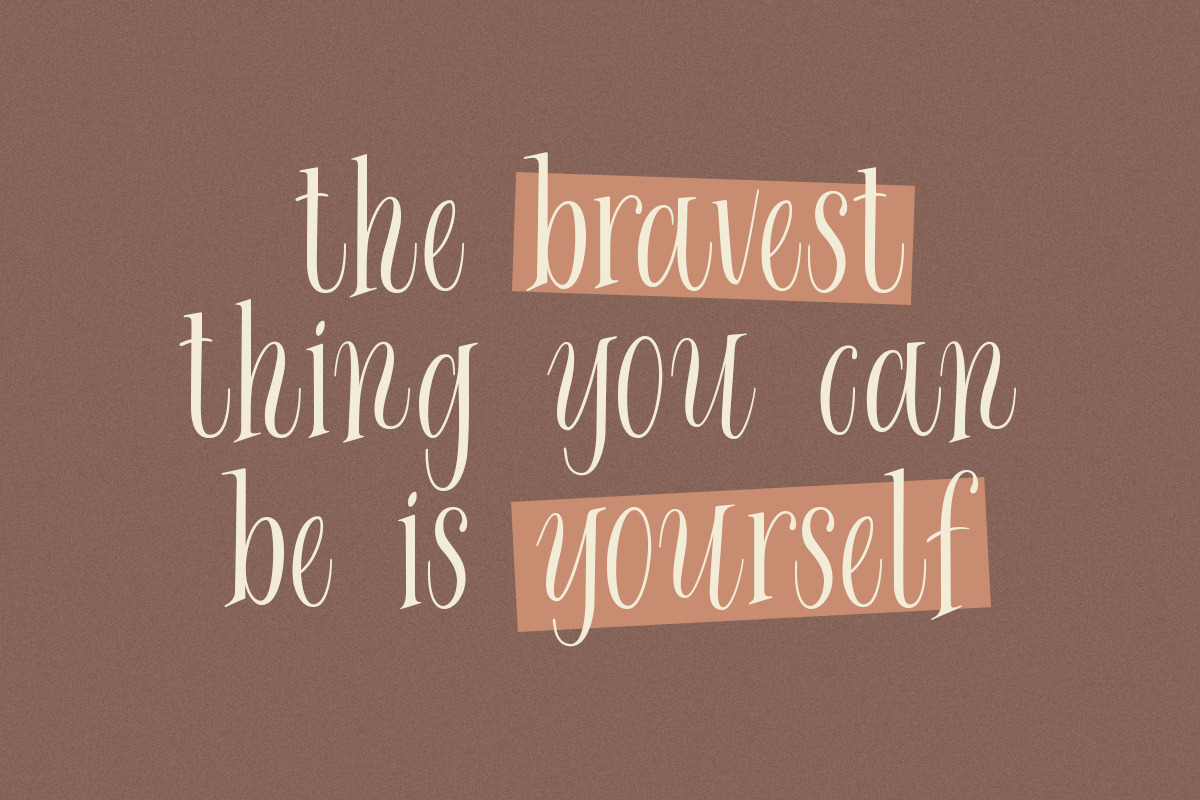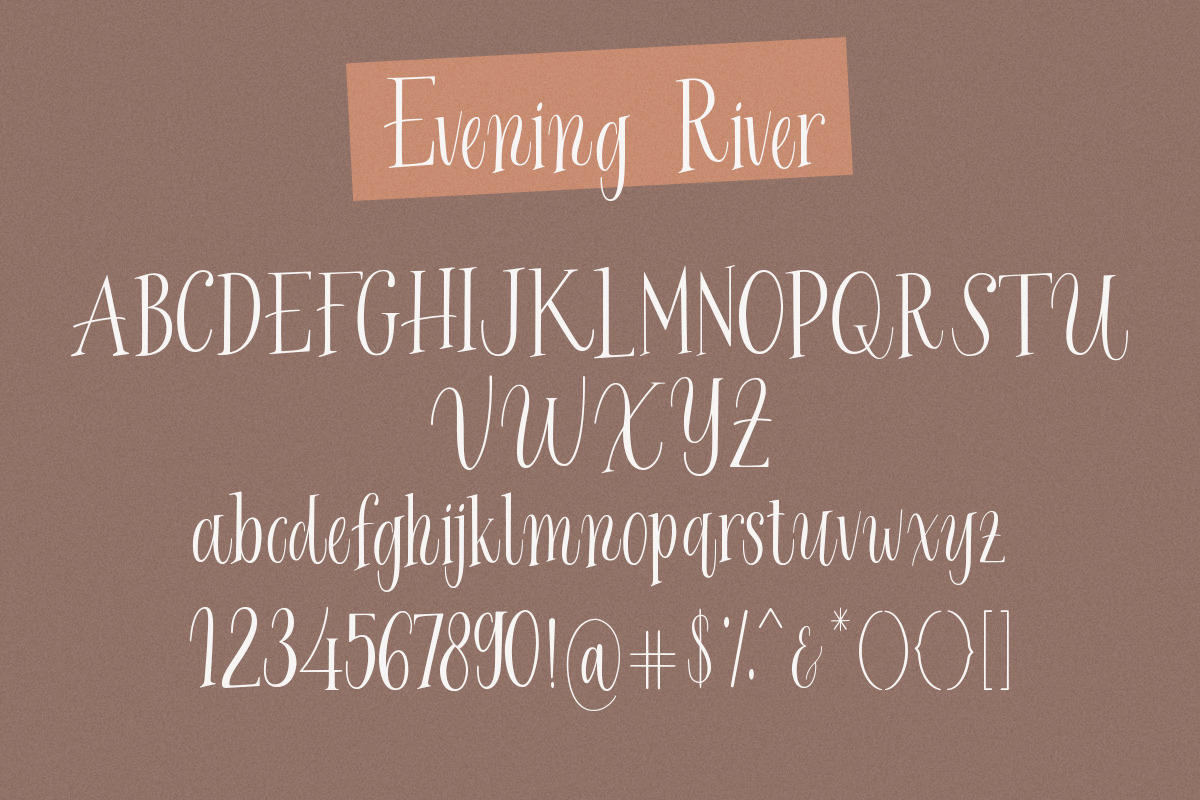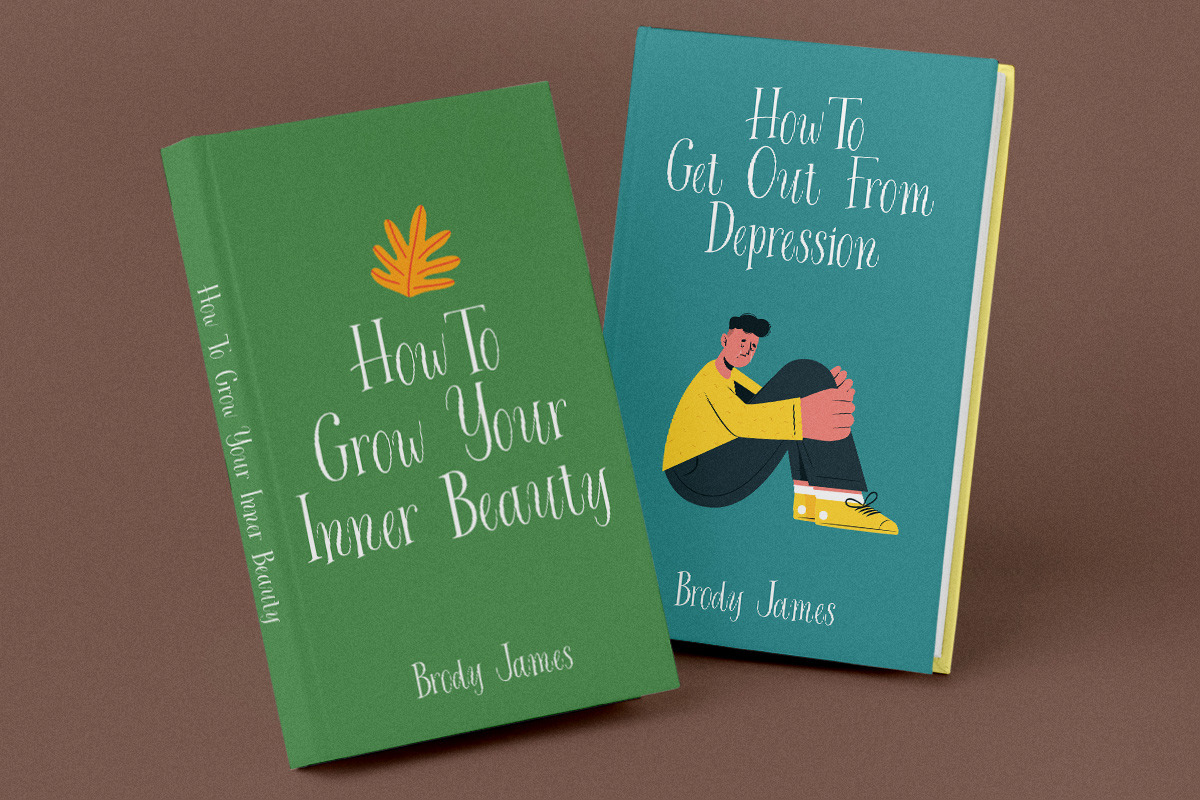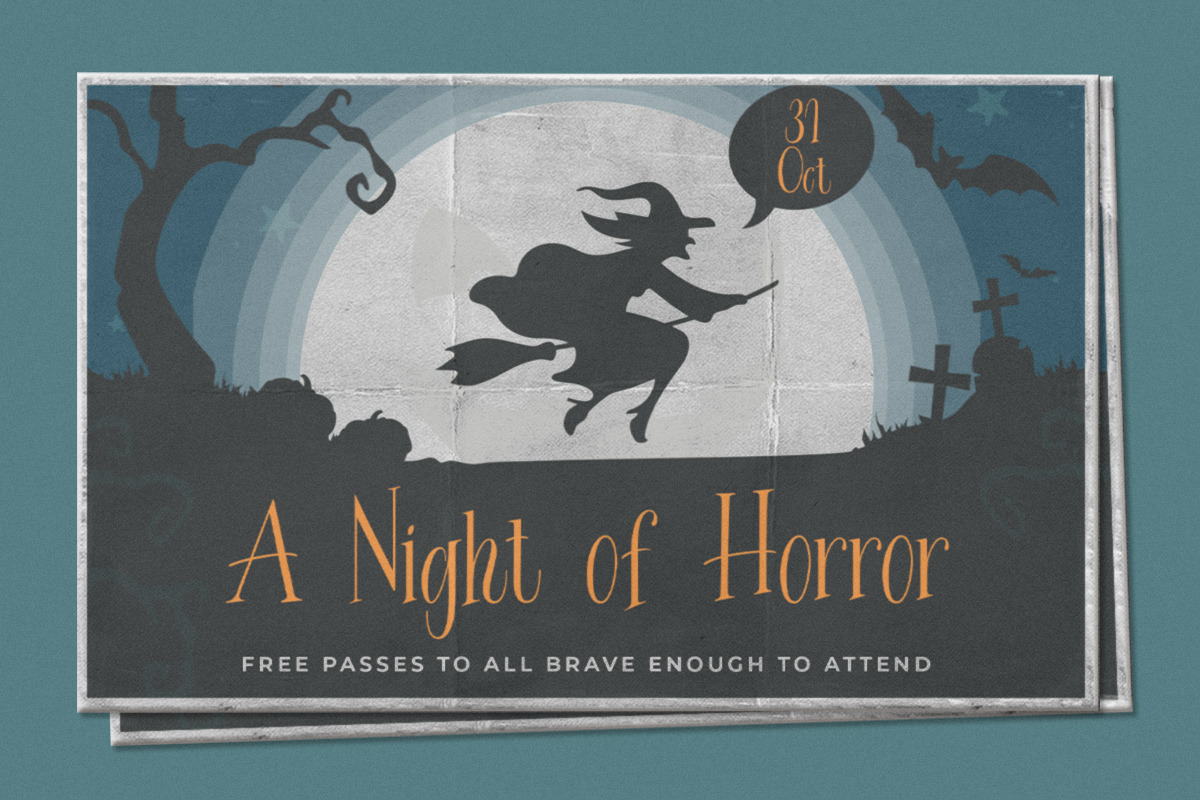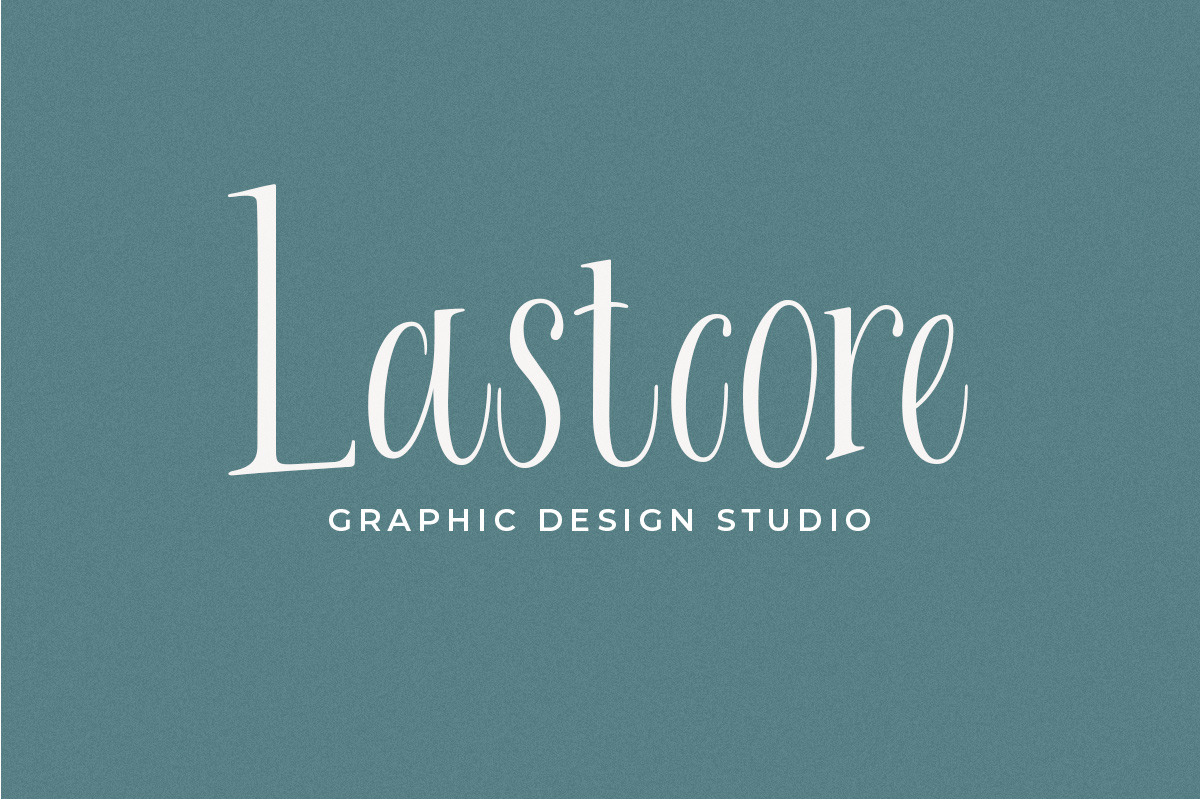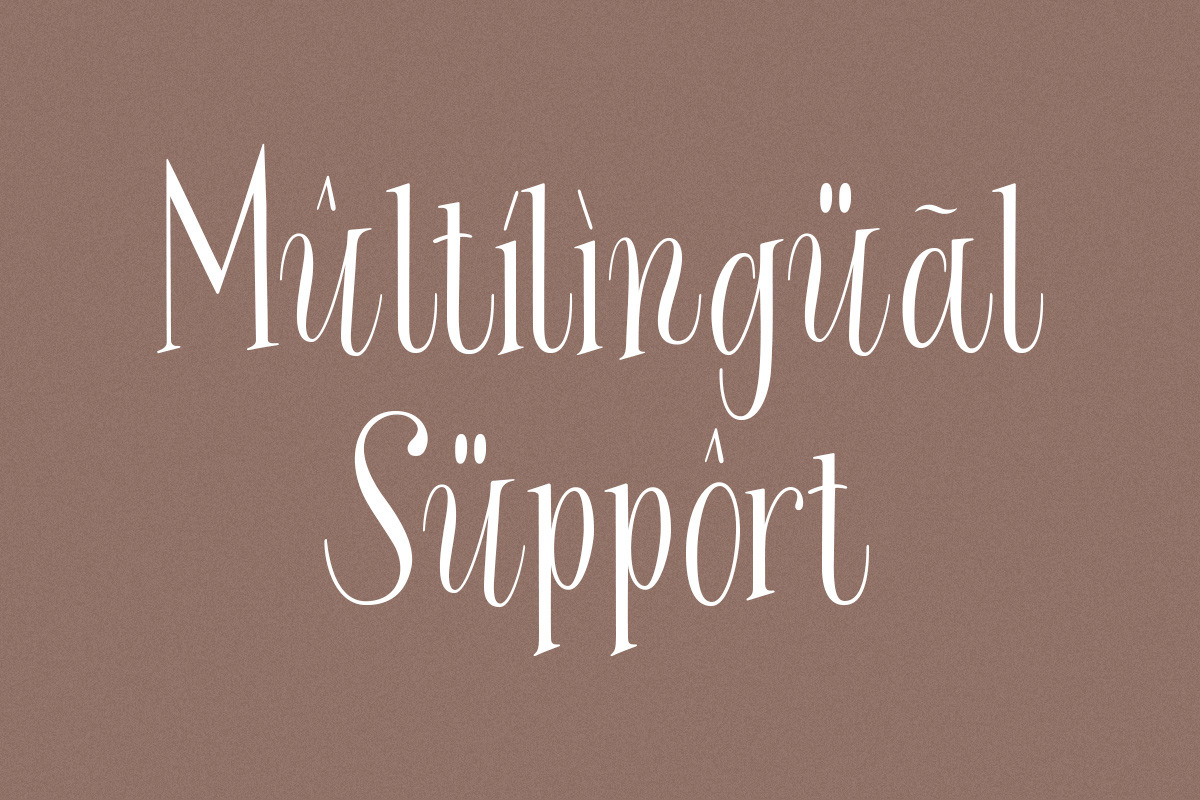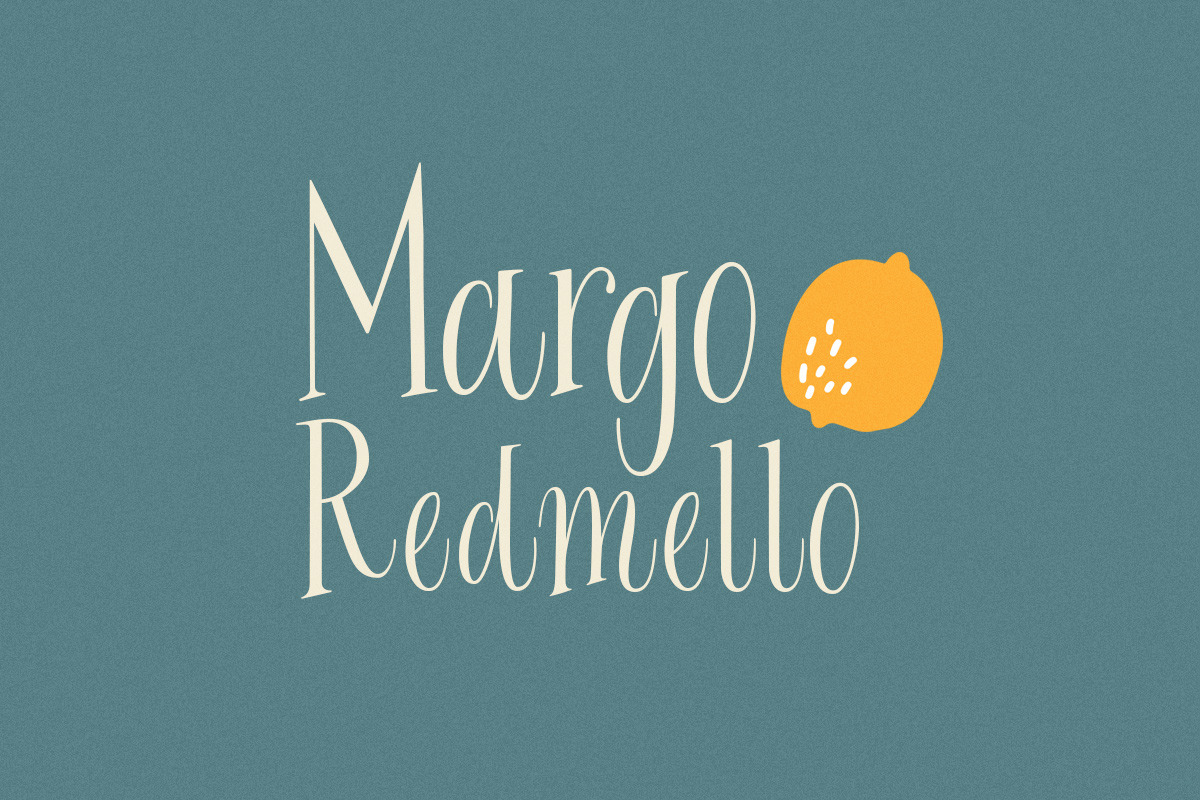
Evening River - Elegant Display Type
Introducing, Evening River an elegant display typeface. this font is perfect for headline, packaging, branding, etc.